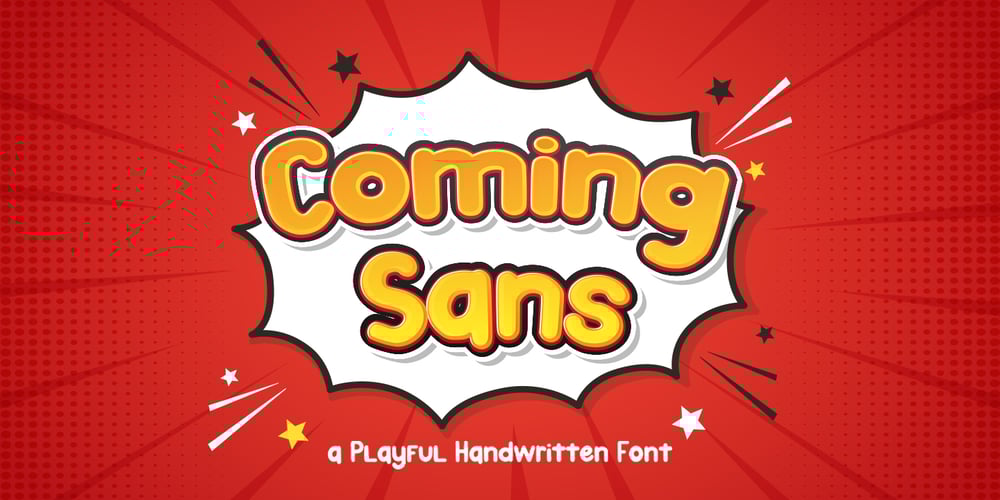
Coming Sans
Coming Sans font
Coming Sans Font Family was designed by Hilmius Akbar and published by Typefactory. Coming Sans contains 1 styles and family package options. Coming Sans is playful font which puts a smile on your projects and will inspire you to create something fun and memorable like comic or children storybook.It is perfect for comic book, cartoon theme, headings, flyer, greeting cards, product packaging, book cover, printed quotes, logotype, apparel design, album covers, etc